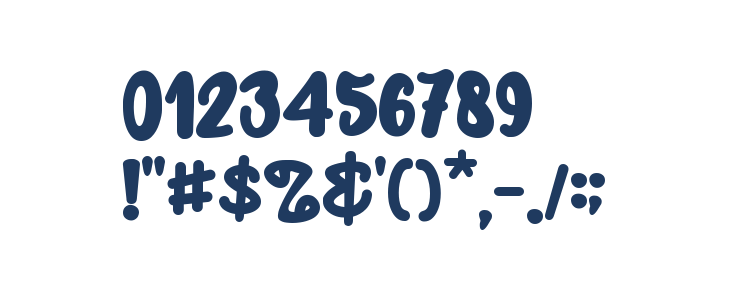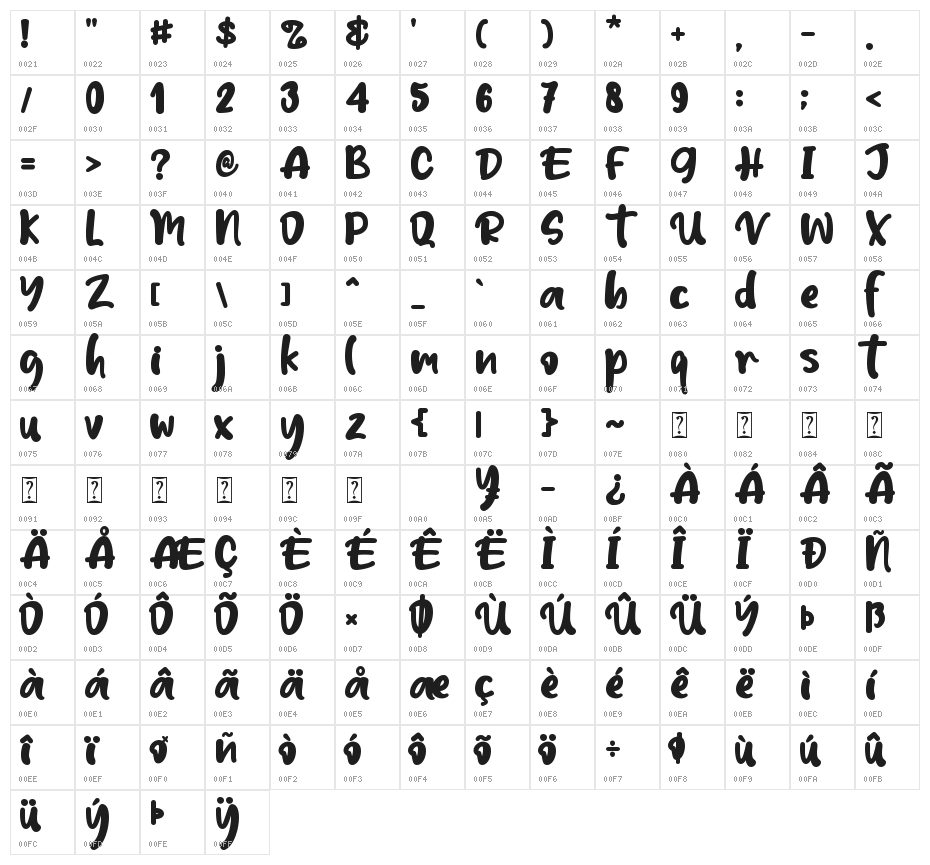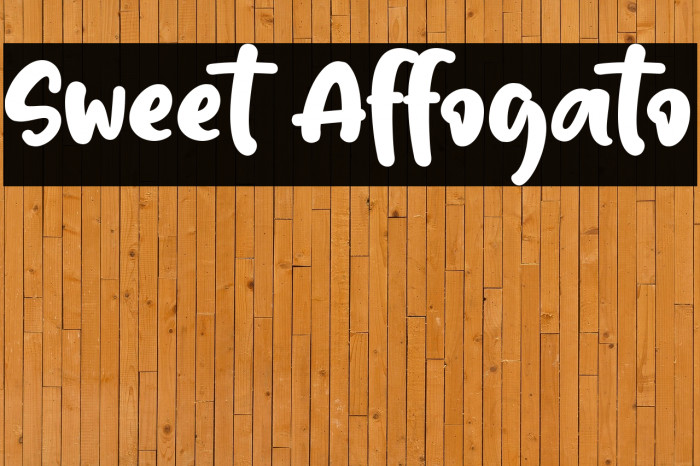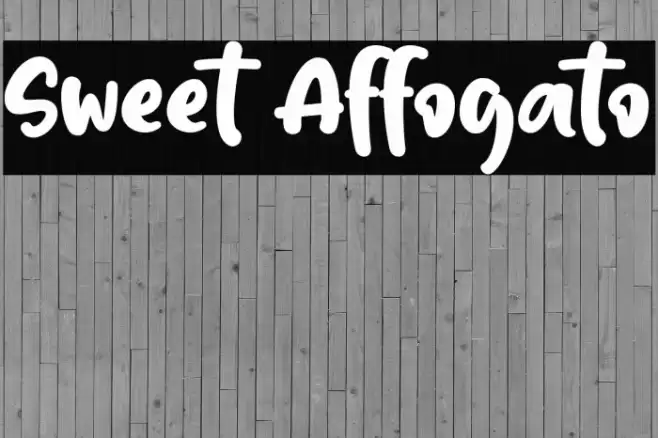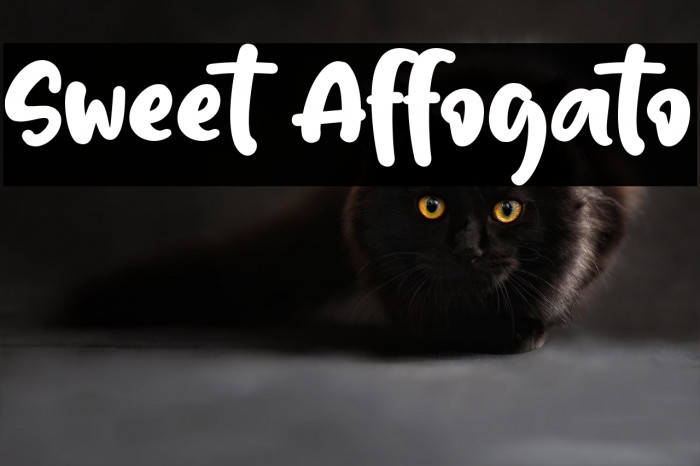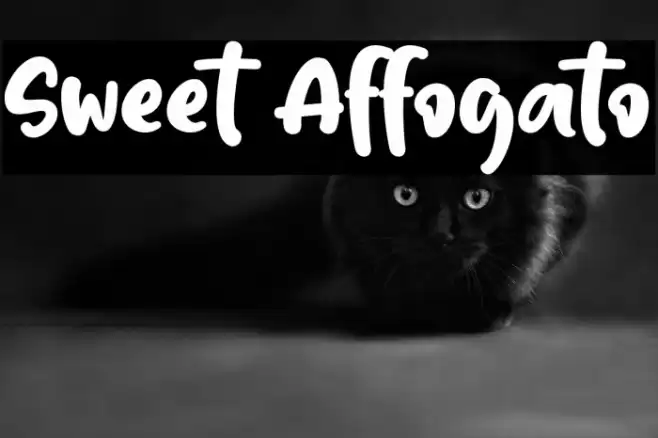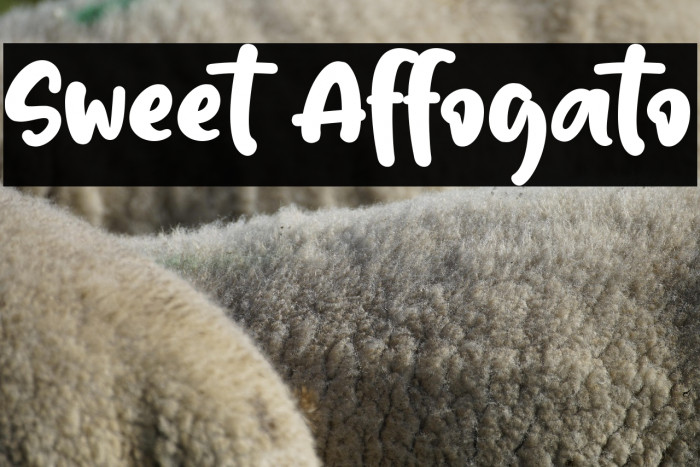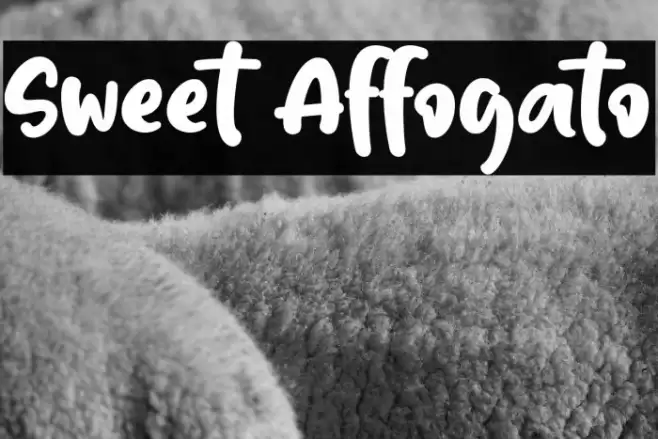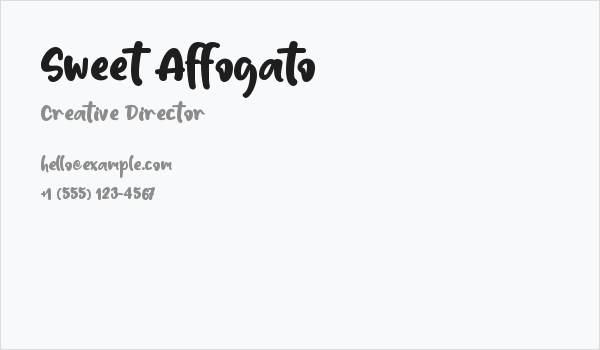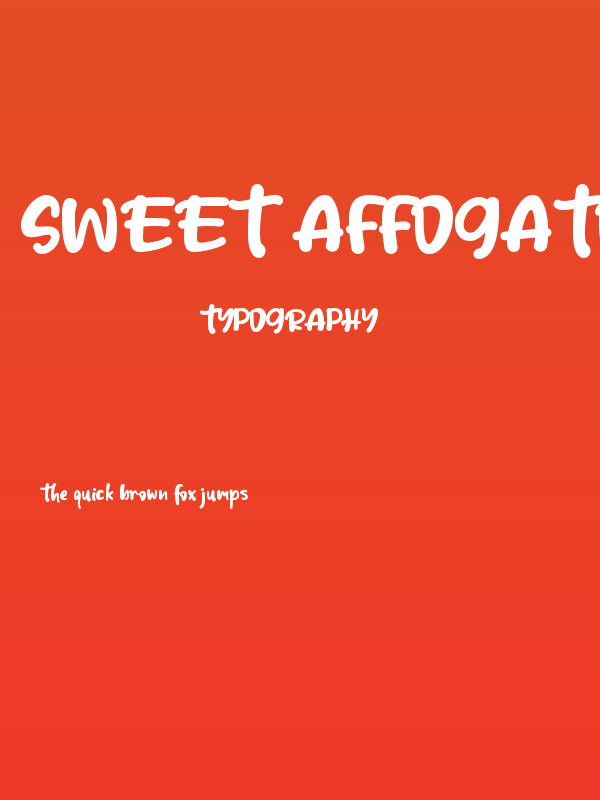
Sweet Affogato Font
This playful and energetic font features bold, rounded characters with a hand-drawn feel. The letters are slightly irregular, adding a whimsical and casual touch. The uppercase and lowercase letters maintain a consistent style, with smooth curves and a friendly appearance. The numbers and special characters follow the same design, ensuring a cohesive look across all text. This font's lively personality makes it ideal for projects that require a fun and approachable aesthetic.
| Proposed Projects | Perfect for children's books, playful branding, greeting cards, and social media graphics. |